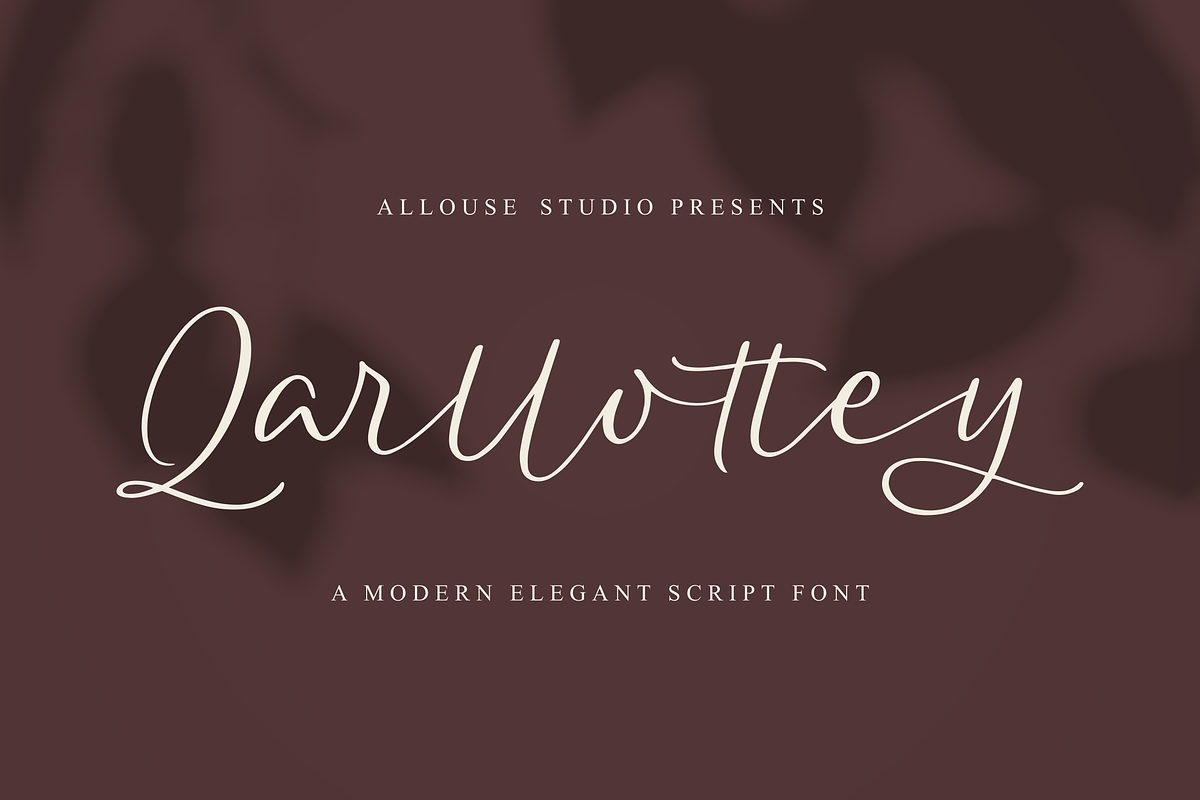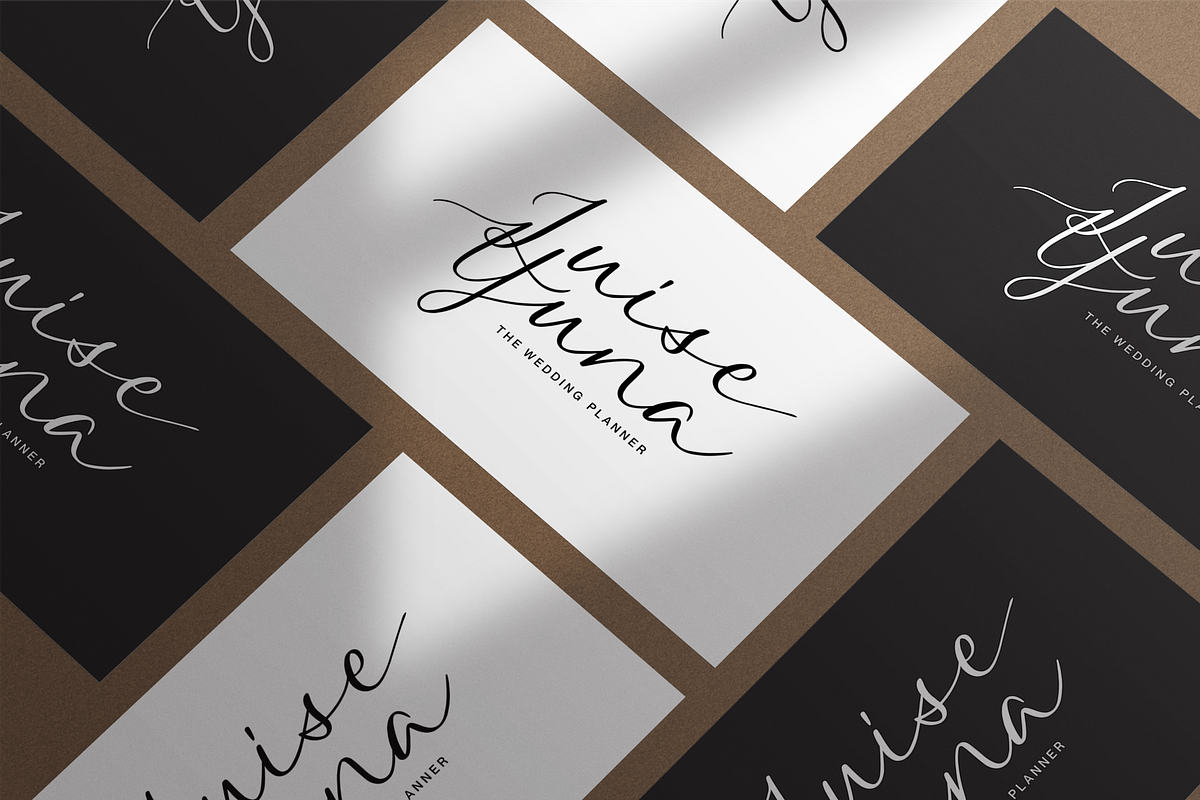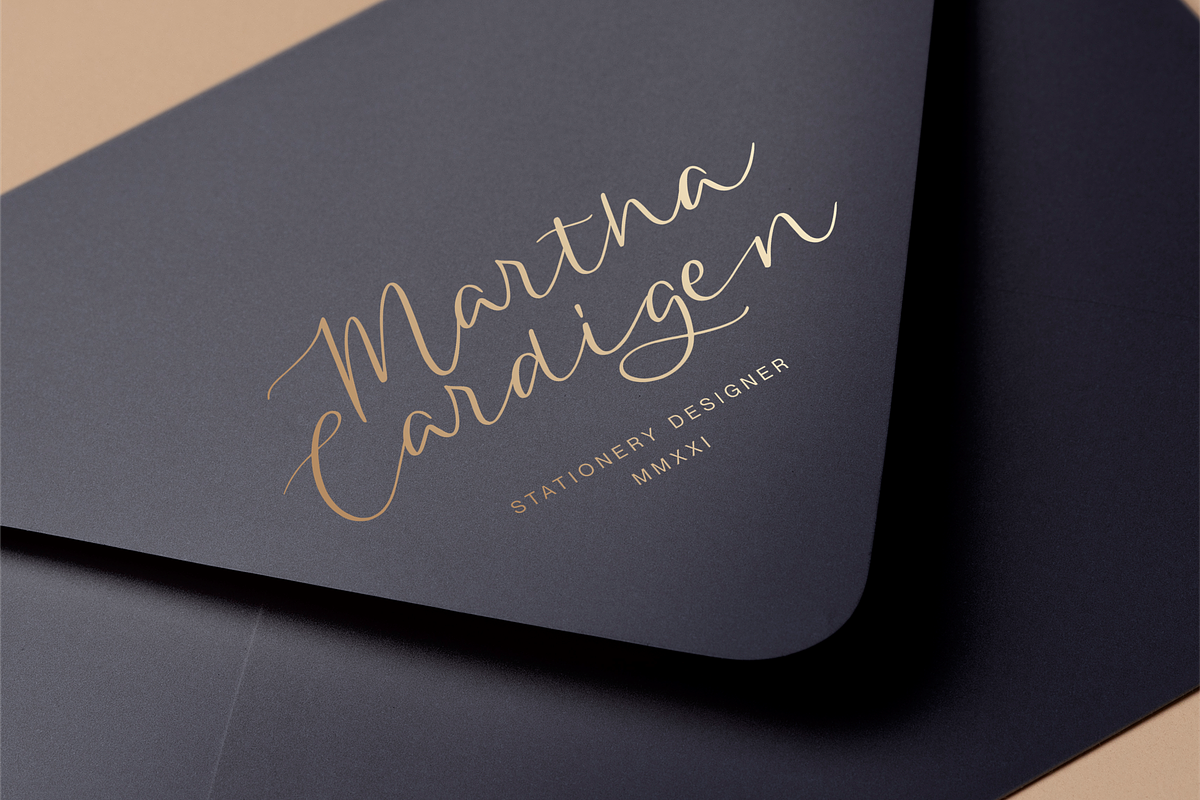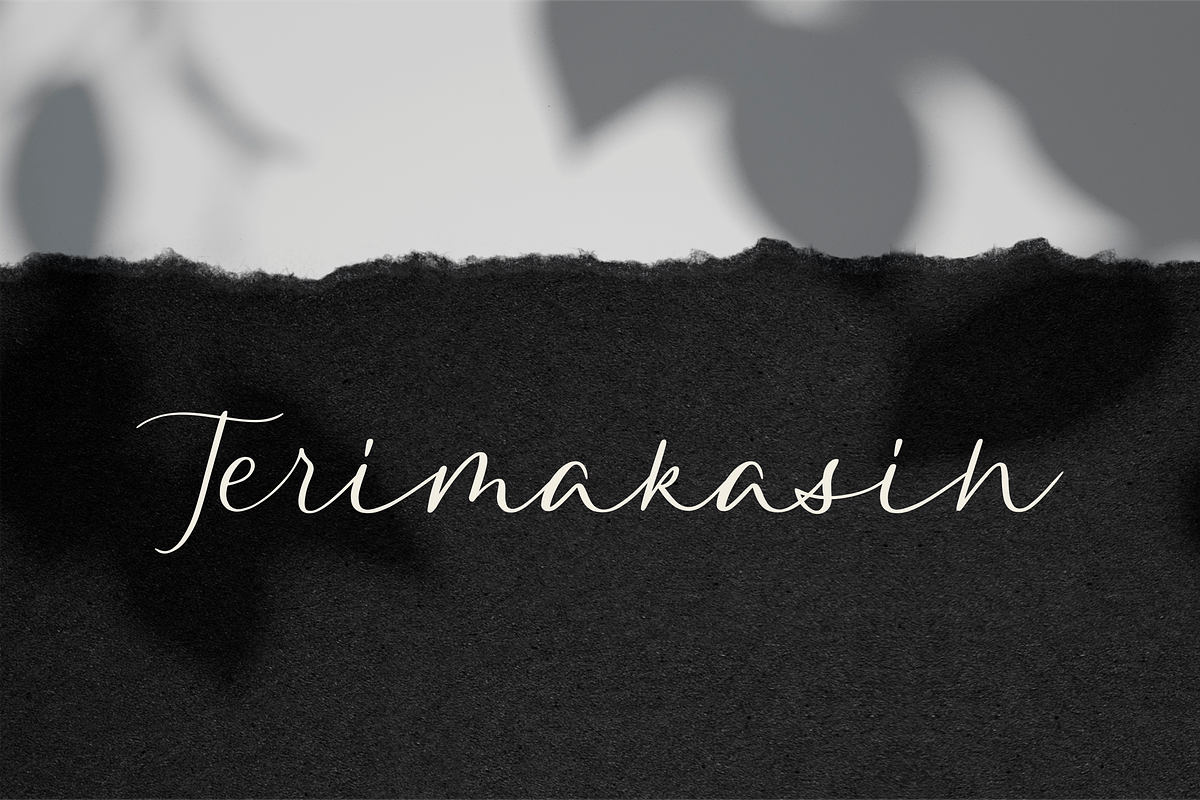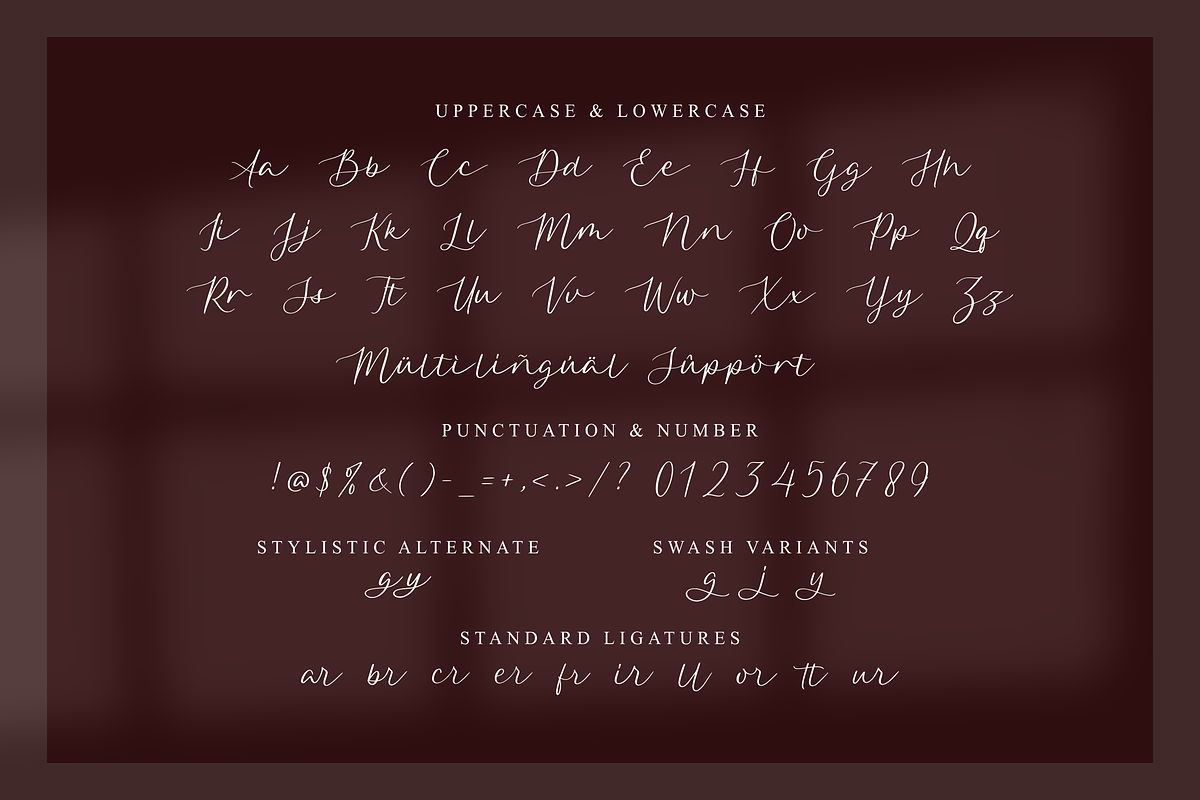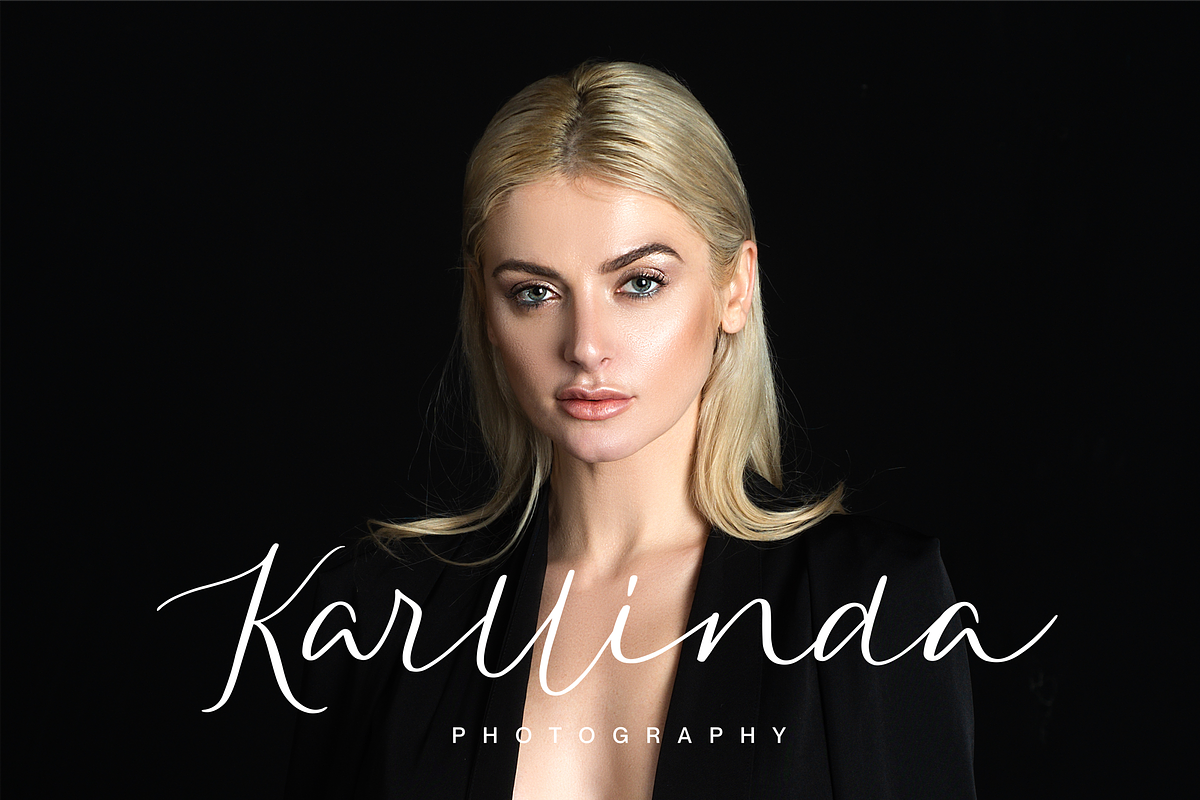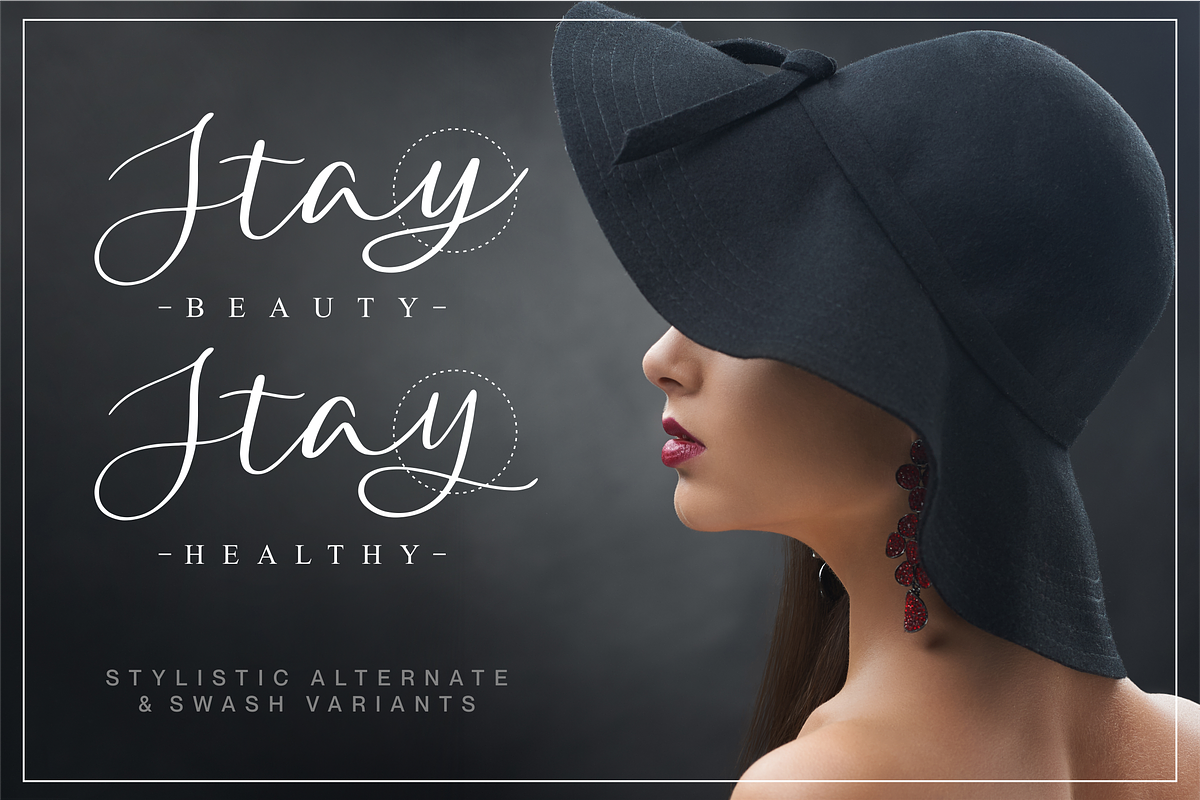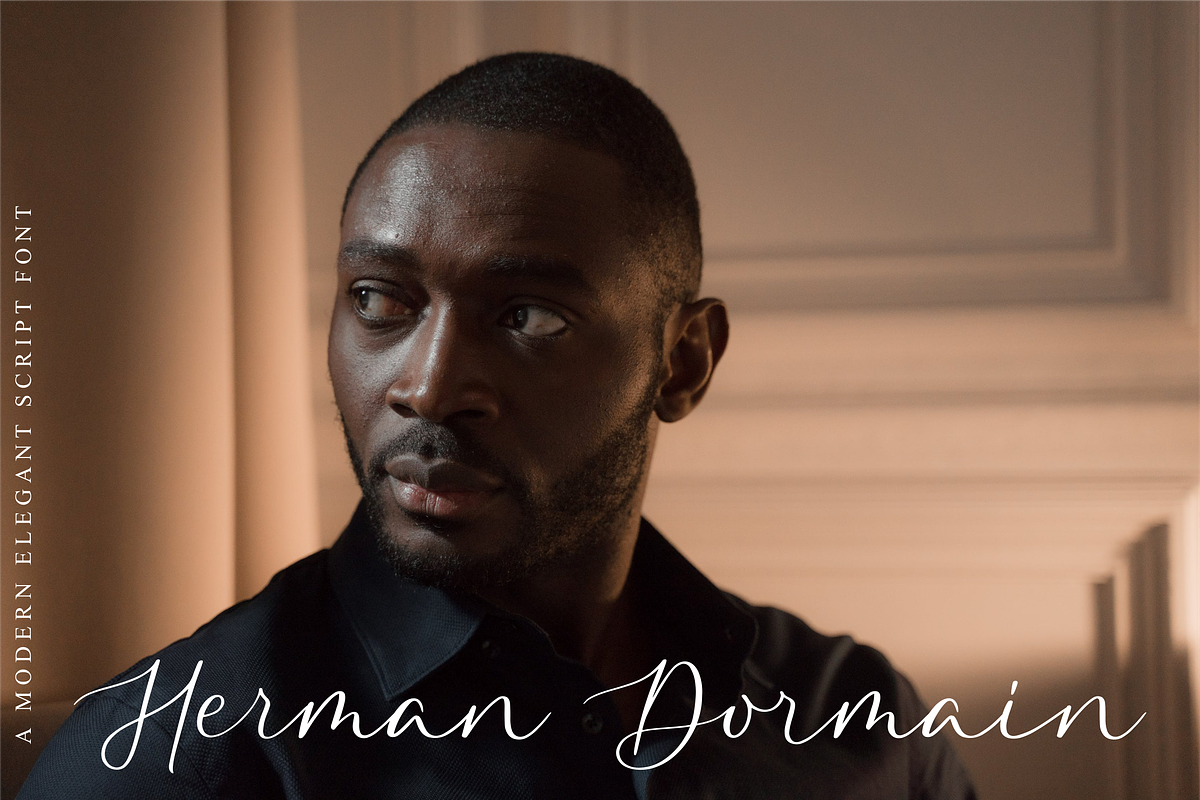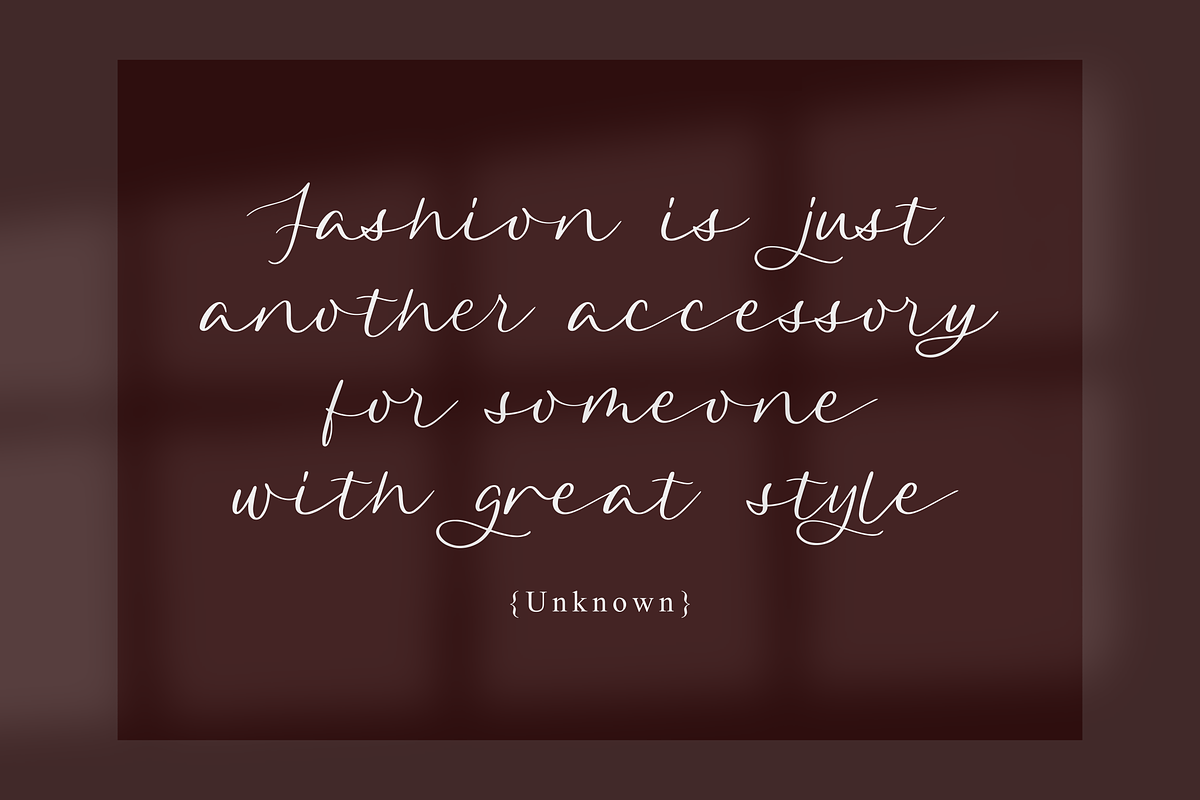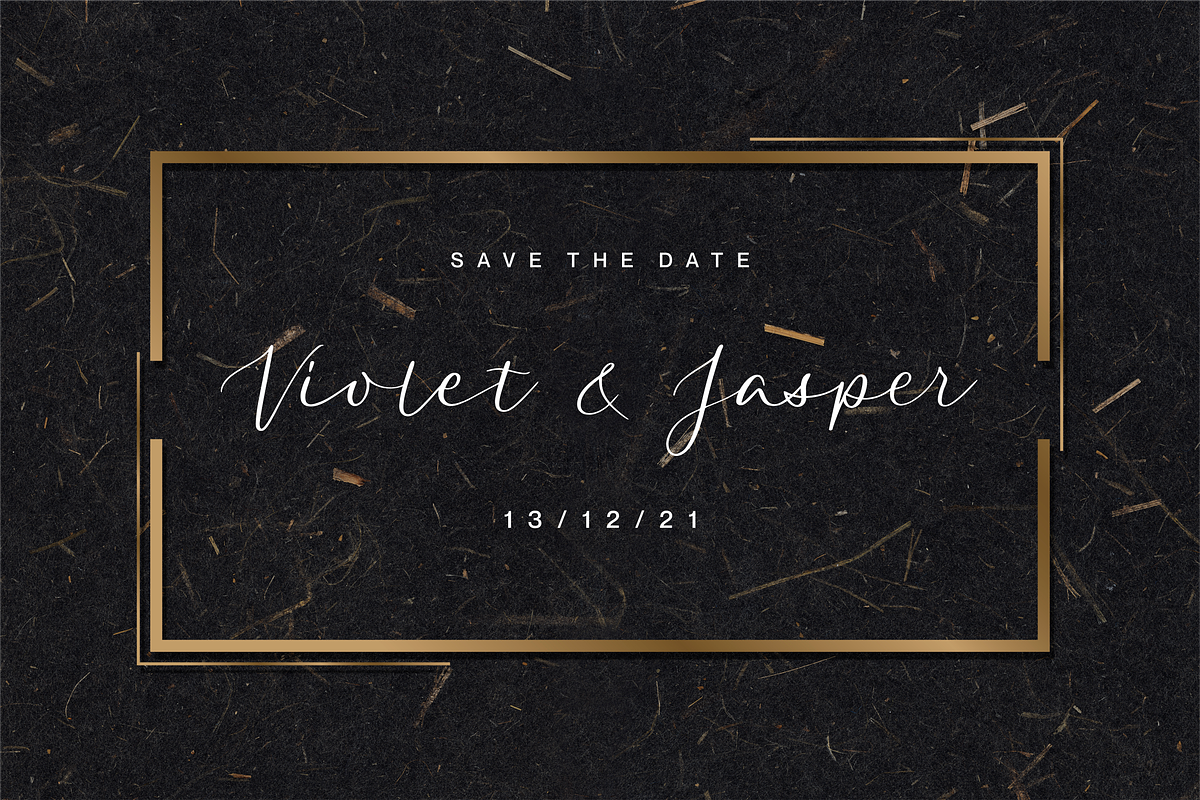
Qarllottey Modern Elegant Script F
Proudly Presenting, Qarllottey a Modern Elegant Script Font.
Qarllottey is perfect for any titles, logo, product packaging, branding project, megazine, social media, wedding, or just used to express words above the background.
Qarllottey also come with Multi-Lingual Support.